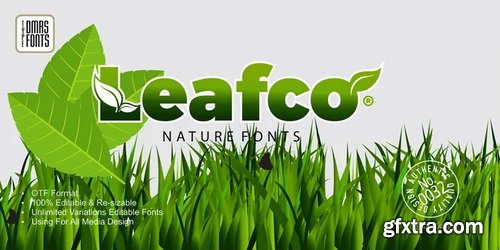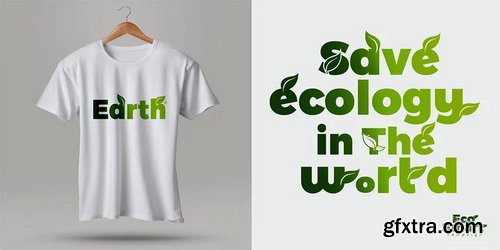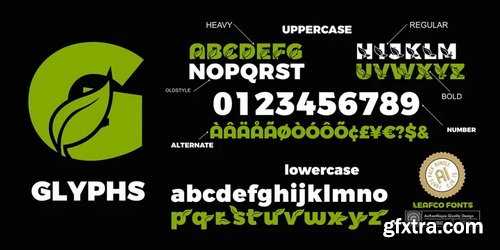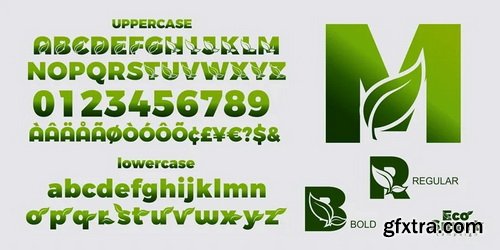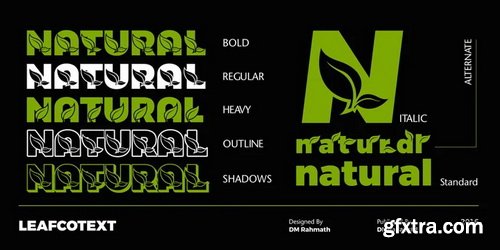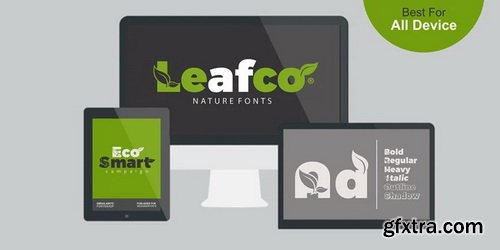
Leafco Font Family
Leafco is a type of font with a decorative nature look. Leafco include a full set of large and small letters as well as multi-lingual and currency support, numbers, punctuation, alternatives, binders and some additional glyphs.